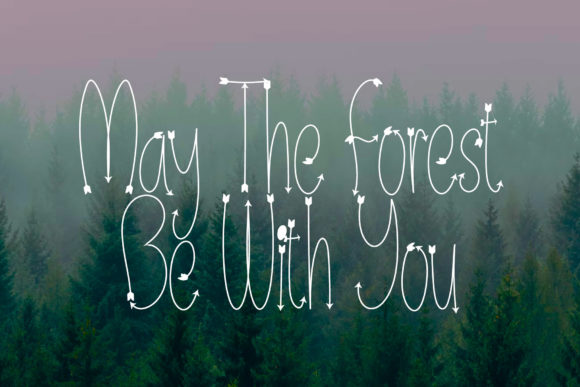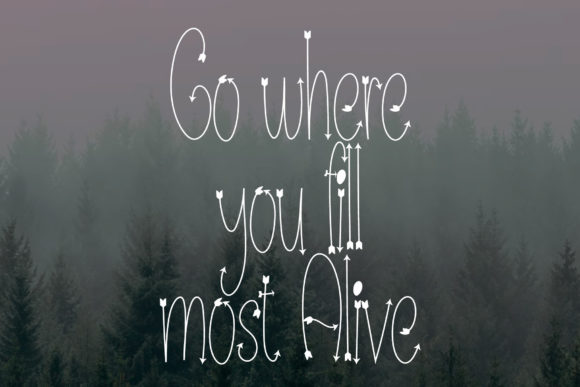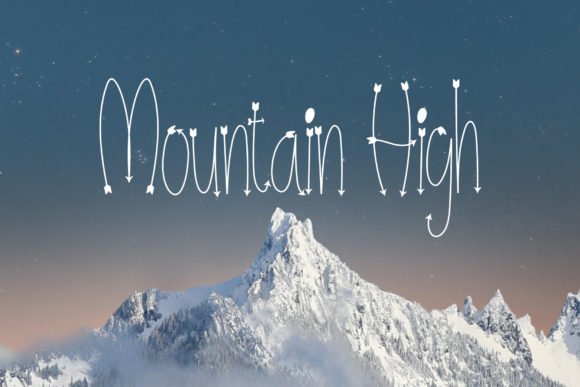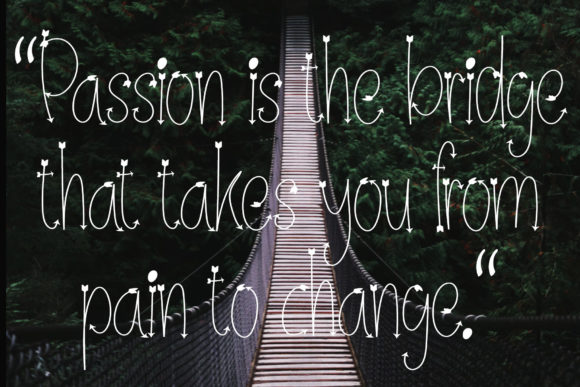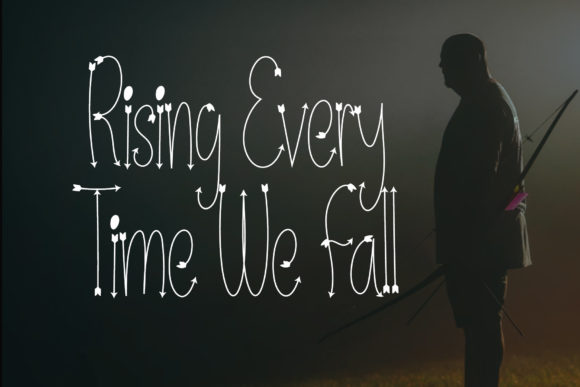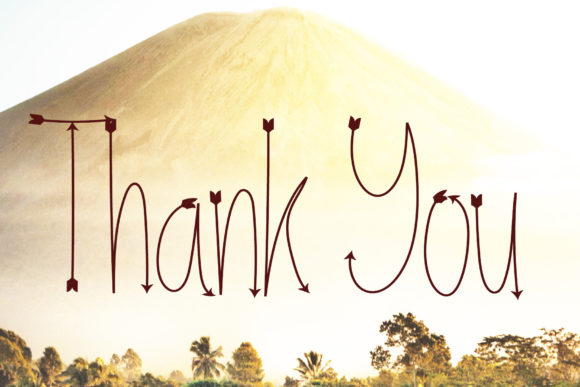
Introducing Arrow Hunter Font: The Ultimate Display Font for Your Creative Projects
Are you on the hunt for a font that can add a touch of uniqueness and playfulness to your designs? Look no further than the Arrow Hunter Font! This versatile display font is perfect for designers and crafters who want to create spectacular designs that stand out from the crowd. In this article, we’ll dive into the world of Arrow Hunter Font and explore its features, uses, and benefits.
What is Arrow Hunter Font?
Arrow Hunter Font is a one-of-a-kind display font that boasts an incredibly versatile style. Its unique design makes it perfect for a wide range of creative projects, from wedding invitations and greeting cards to logos and business cards. Whether you’re a professional designer or a DIY crafter, this font is sure to become a favorite in your collection.
Key Features of Arrow Hunter Font
- Unique and Playful Design: Arrow Hunter Font features a distinctive design that’s both fun and simple. Its playful style makes it perfect for designs that need a touch of whimsy and personality.
- Versatile: This font is incredibly versatile and can be used for a wide range of projects, from digital designs to print materials.
- Easily Readable: Despite its unique design, Arrow Hunter Font is easily readable, making it perfect for body text and headlines.
Uses of Arrow Hunter Font
So, what can you use Arrow Hunter Font for? The possibilities are endless! Here are some ideas to get you started:
- Wedding Invitations: Add a touch of romance and whimsy to your wedding invitations with Arrow Hunter Font.
- Greeting Cards: Create beautiful and unique greeting cards for birthdays, holidays, and special occasions.
- Logos and Branding: Use Arrow Hunter Font to create a memorable logo or brand identity for your business.
- Business Cards: Stand out from the crowd with Arrow Hunter Font on your business cards.
- Quotes and Posters: Create inspiring quotes and posters with Arrow Hunter Font.
Benefits of Using Arrow Hunter Font
So, why should you choose Arrow Hunter Font for your next project? Here are some benefits of using this amazing font:
- Time-Saving: With Arrow Hunter Font, you can create stunning designs in no time. Its unique design and versatility save you time and effort.
- Professional-Looking Designs: Arrow Hunter Font is perfect for creating professional-looking designs that are sure to impress.
- Customizable: You can customize Arrow Hunter Font to fit your brand’s style and personality.
Tips and Tricks for Using Arrow Hunter Font
Here are some tips and tricks to help you get the most out of Arrow Hunter Font:
- Experiment with Colors: Try out different colors and combinations to find the perfect look for your design.
- Play with Sizes: Experiment with different font sizes to create visual interest and hierarchy in your design.
- Mix and Match: Combine Arrow Hunter Font with other fonts to create a unique and interesting design.
| Font Name | Arrow Hunter Font |
| Author | Ansart |